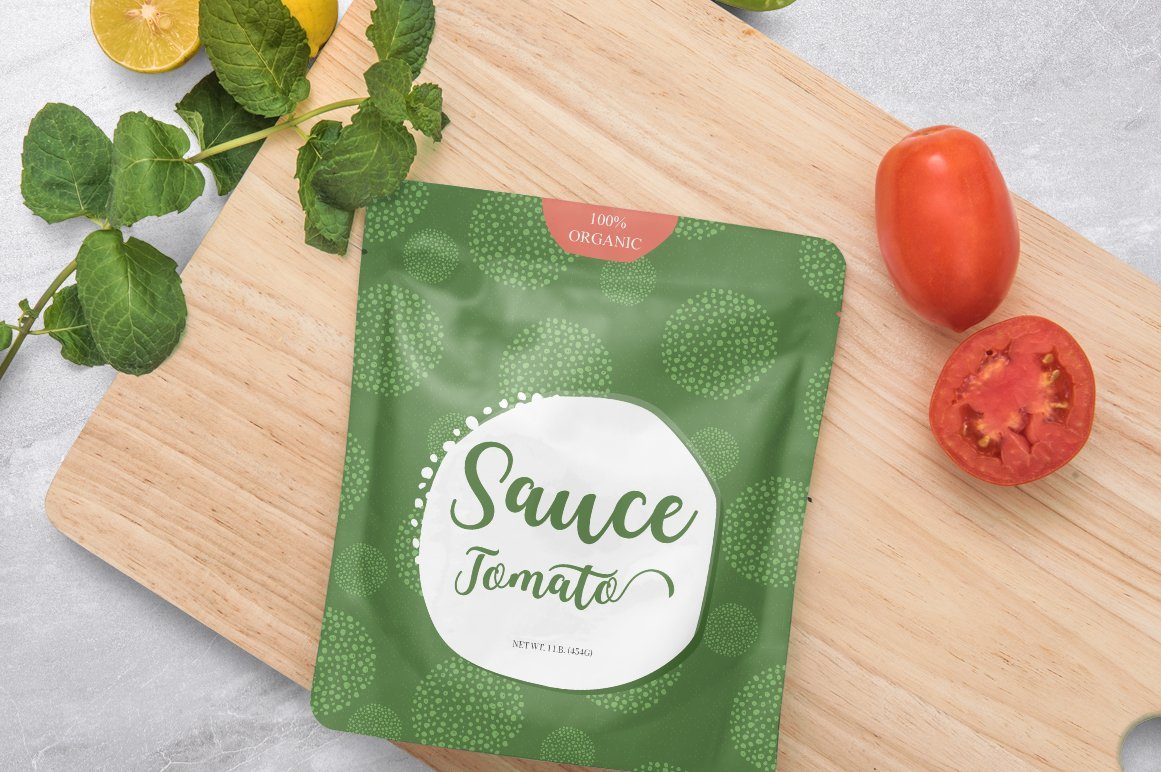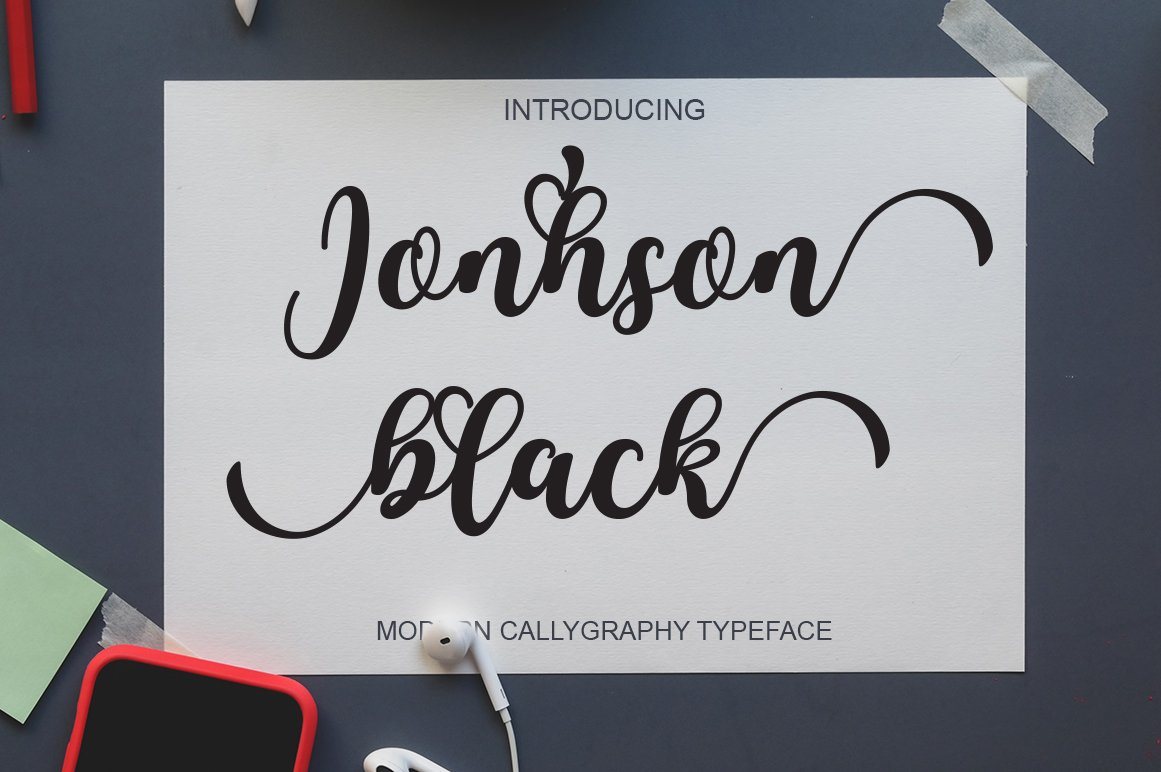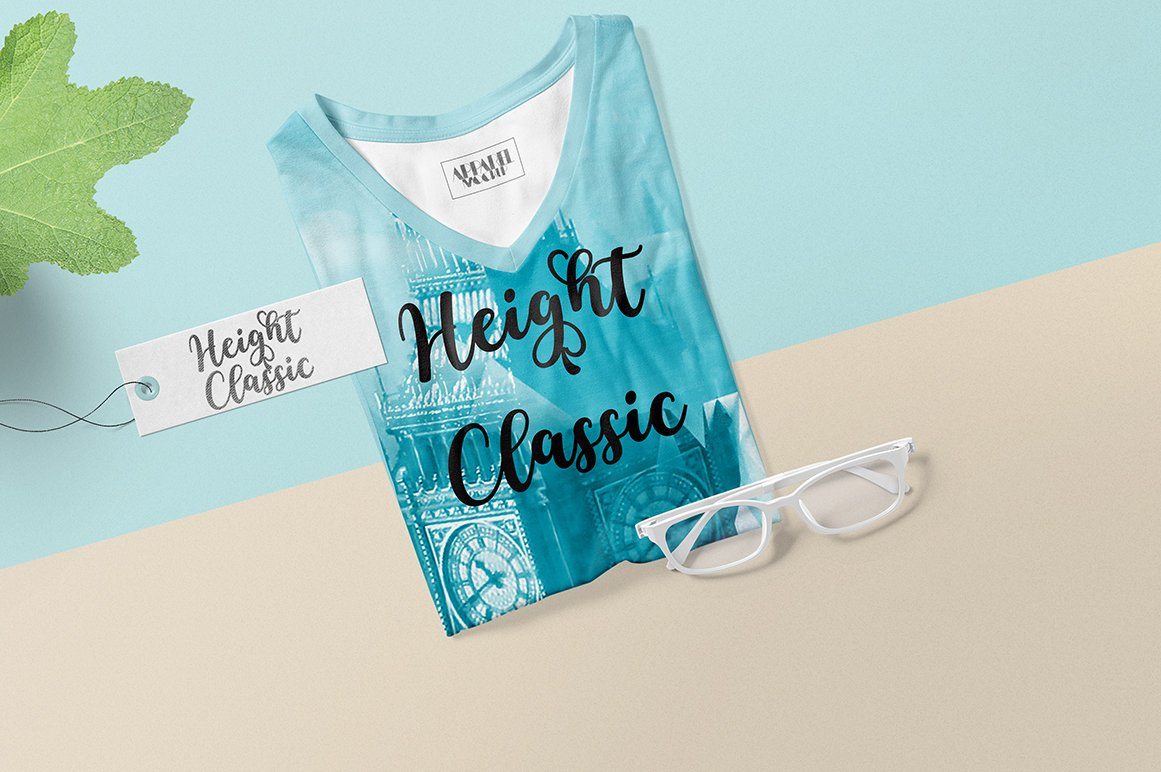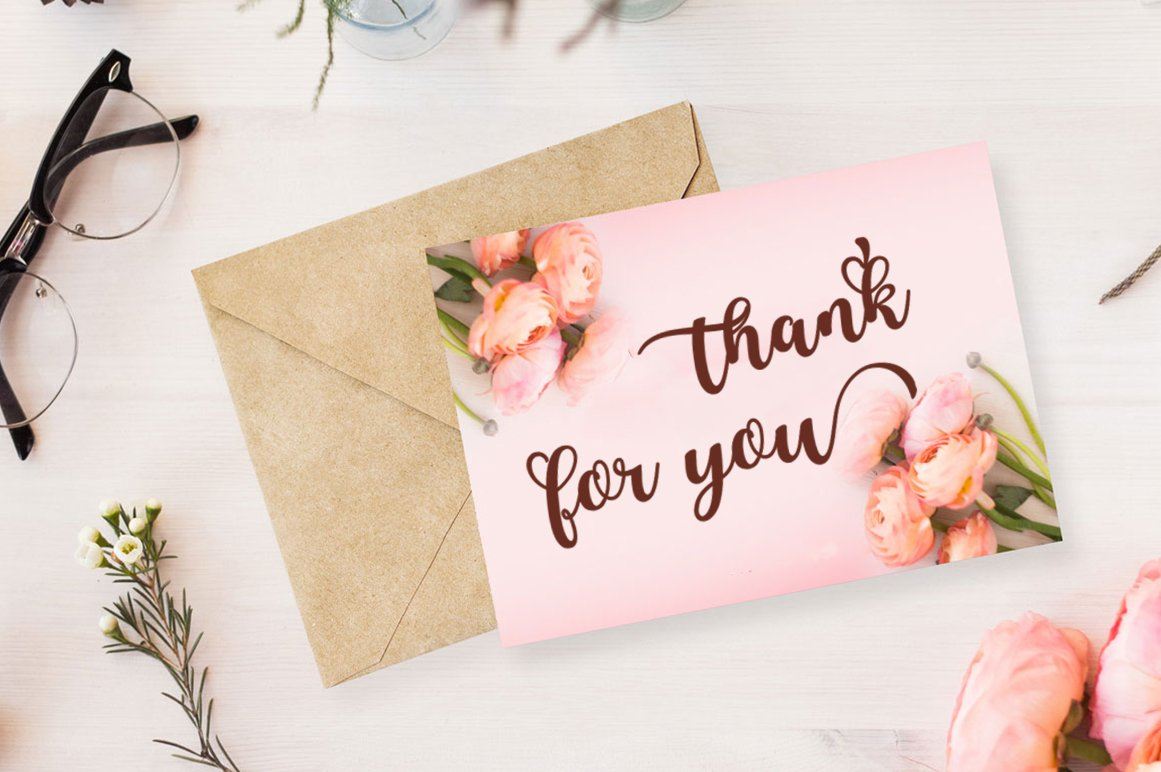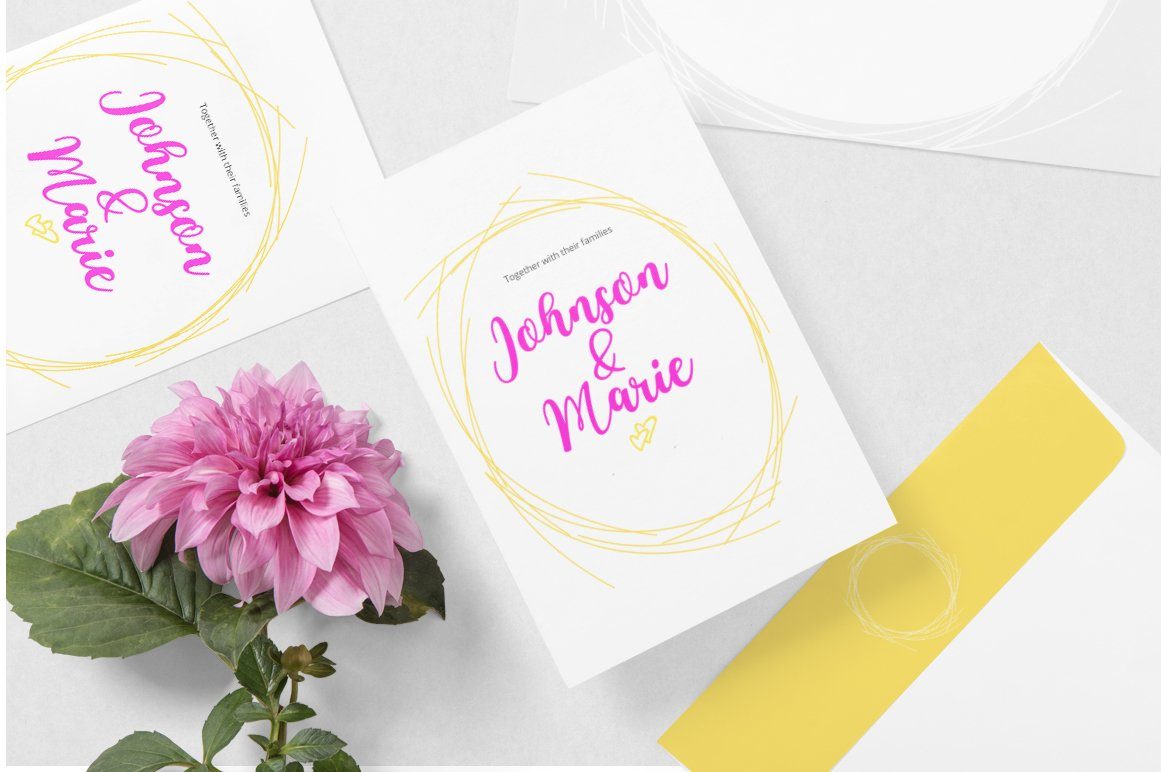
Jonhson Black Script
About Jonhson Black Script
I Want To Introduce New Fonts Jonhson Black  Script New fresh & modern style with handmade calligraphy, decorative characters and dancing lineage! So wonderful are invitations like greeting cards, branding material, business cards, quotes, posters, and more !! Jonhson Black Script The comes with 489glyphs. Alternate characters are divided into several Open Type features such as Swash, Stylistic Sets, Stylistic Alternate, Contextual Alternate. Open Type features are accessible by using Open Type savvy programs such as Adobe Illustrator, Adobe InDesign, Adobe Photoshop Corel Draw X versions, and Microsoft Word. And this font has code PUA unicode (font with special code). So that all alternative characters can be easily accessed by craftsmen or designers. Jonhson Black Script Uppercase & lowercase International signature & symbol Punctuation Support & PUA number Unicode Style Style Alternative Style Style Range 1-11 Contextual Character Variations. ZIP files include the following: Jonhson Black  Script.OTF Jonhson Black  Script.TTF Jonhson Black  Italic.OTF Jonhson Black  Italic.TTF If you do not have programs that support OpenType features like Adobe Illustrator and CorelDraw X Versions, you can access all alternative flying machines using Font Book (Mac) or Character Map (Windows). I Want To Introduce New Fonts Jonhson Black  Script New fresh & modern style with handmade calligraphy, decorative characters and dancing lineage! So wonderful are invitations like greeting cards, branding material, business cards, quotes, posters, and more !! Jonhson Black Script The comes with 489glyphs. Alternate characters are divided into several Open Type features such as Swash, Stylistic Sets, Stylistic Alternate, Contextual Alternate. Open Type features are accessible by using Open Type savvy programs such as Adobe Illustrator, Adobe InDesign, Adobe Photoshop Corel Draw X versions, and Microsoft Word. And this font has code PUA unicode (font with special code). So that all alternative characters can be easily accessed by craftsmen or designers. Uppercase & lowercase International signature & symbol Punctuation Support & PUA number Unicode Style Style Alternative Style Style Range 1-11 Contextual Character Variations. If you do not have programs that support OpenType features like Adobe Illustrator and CorelDraw X Versions, you can access all alternative flying machines using Font Book (Mac) or Character Map (Windows).